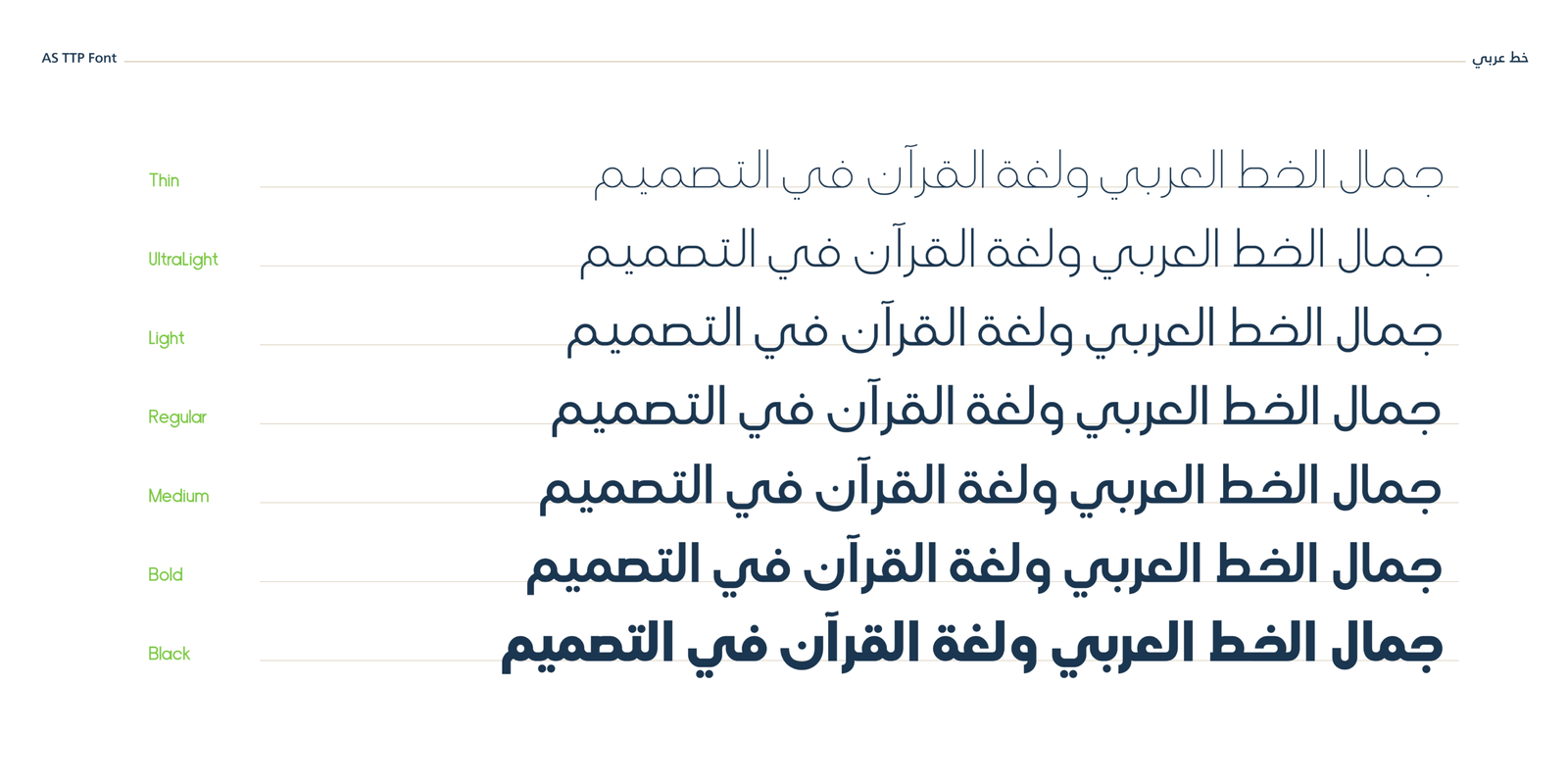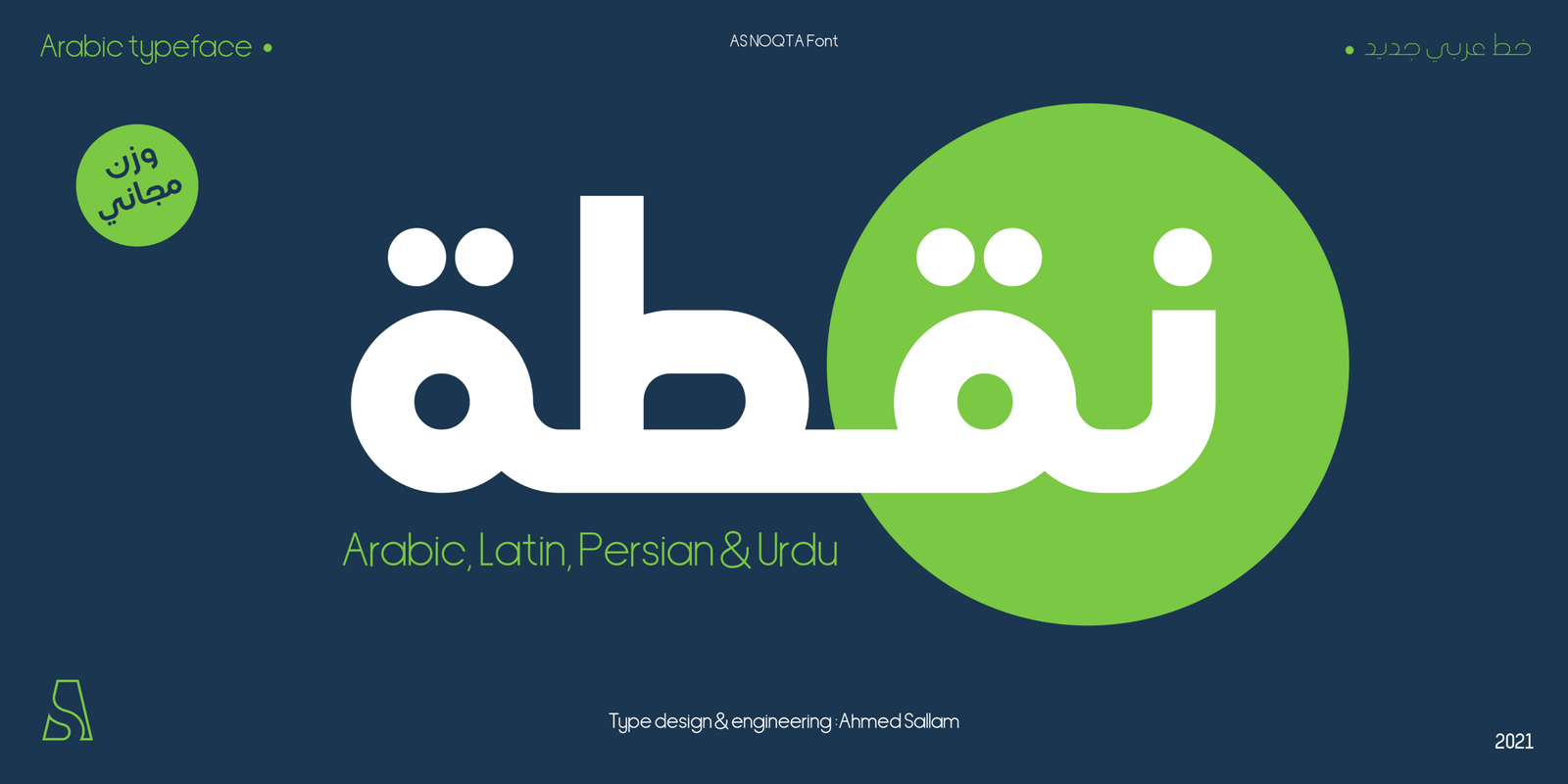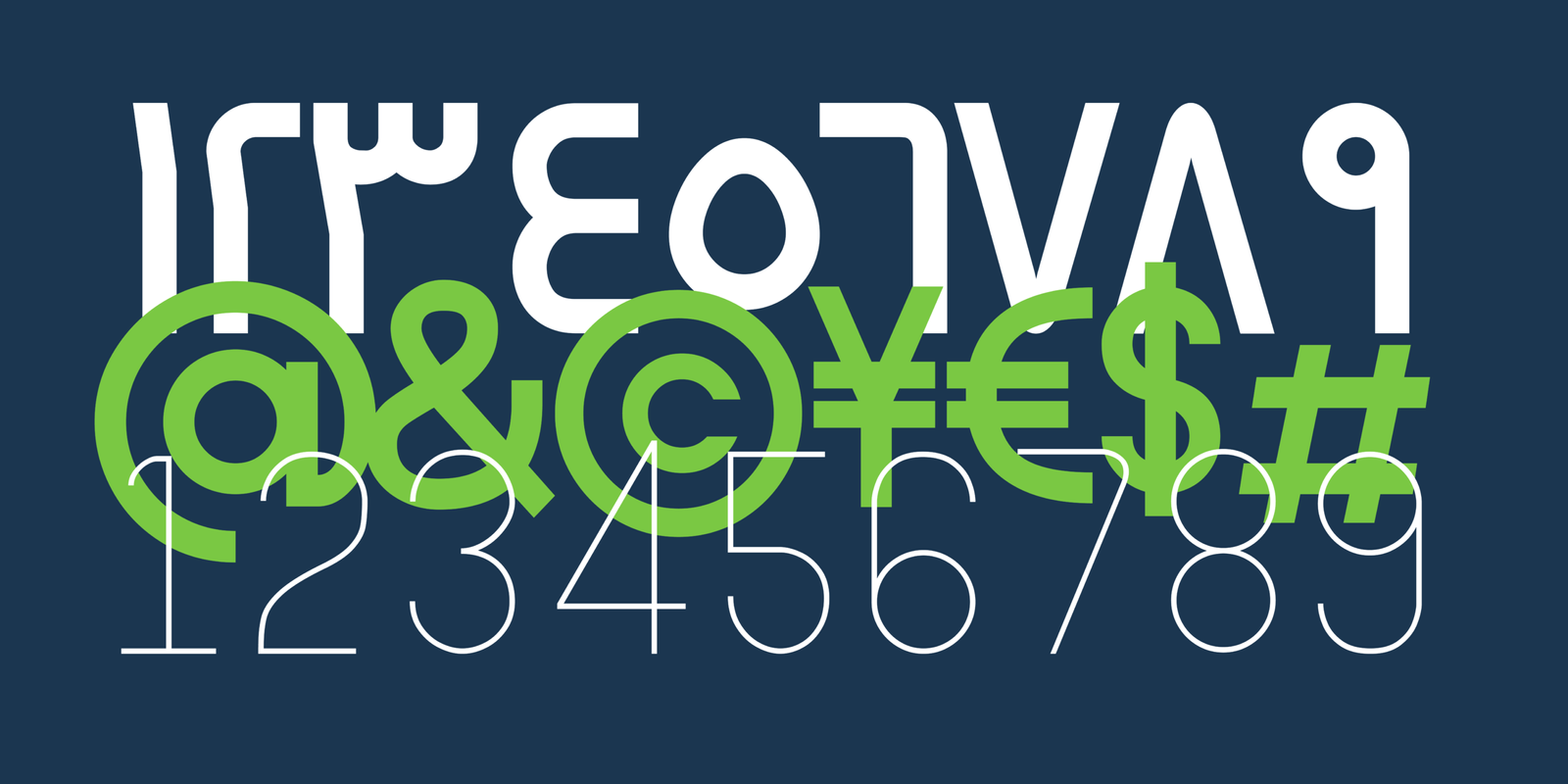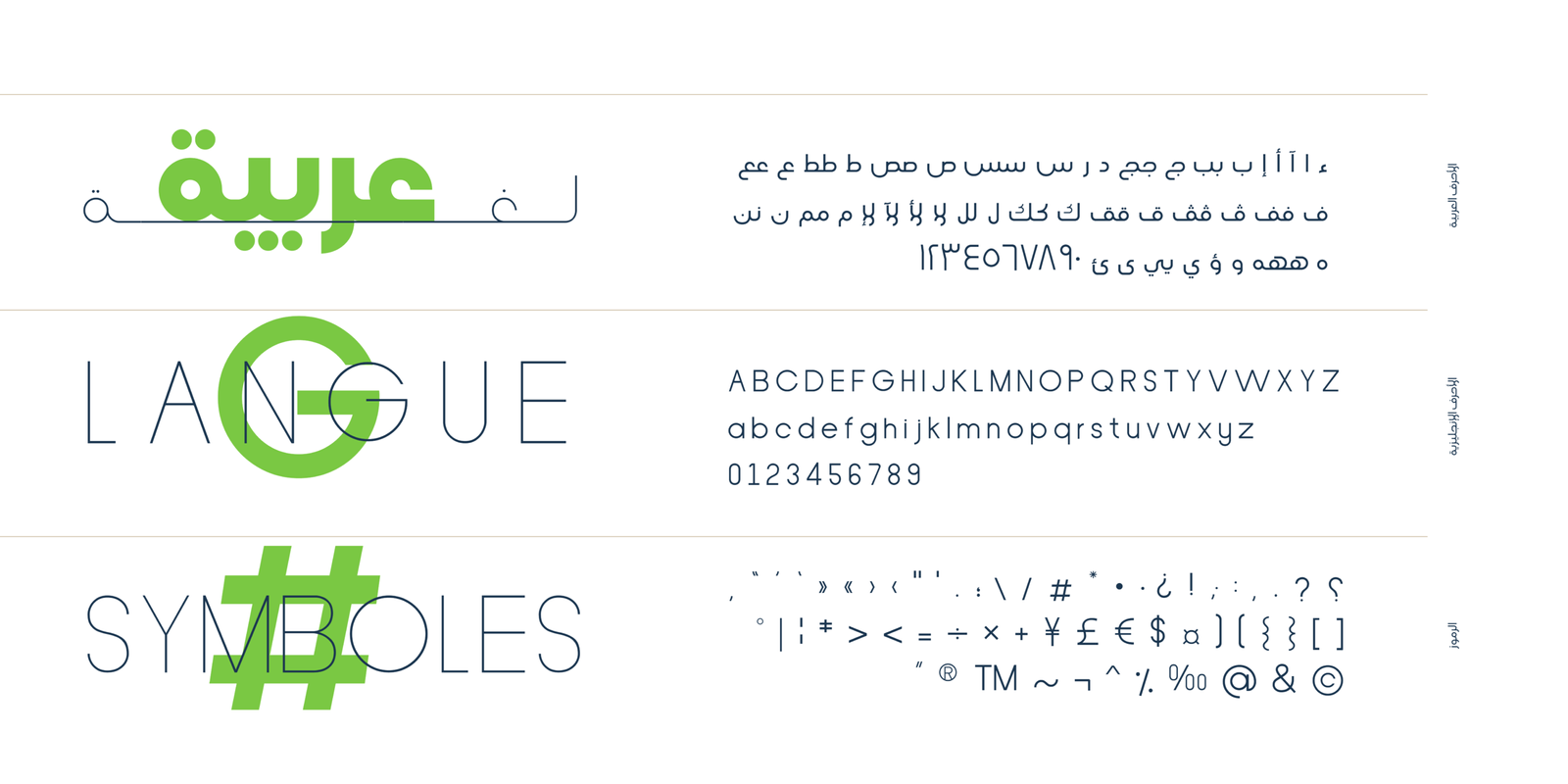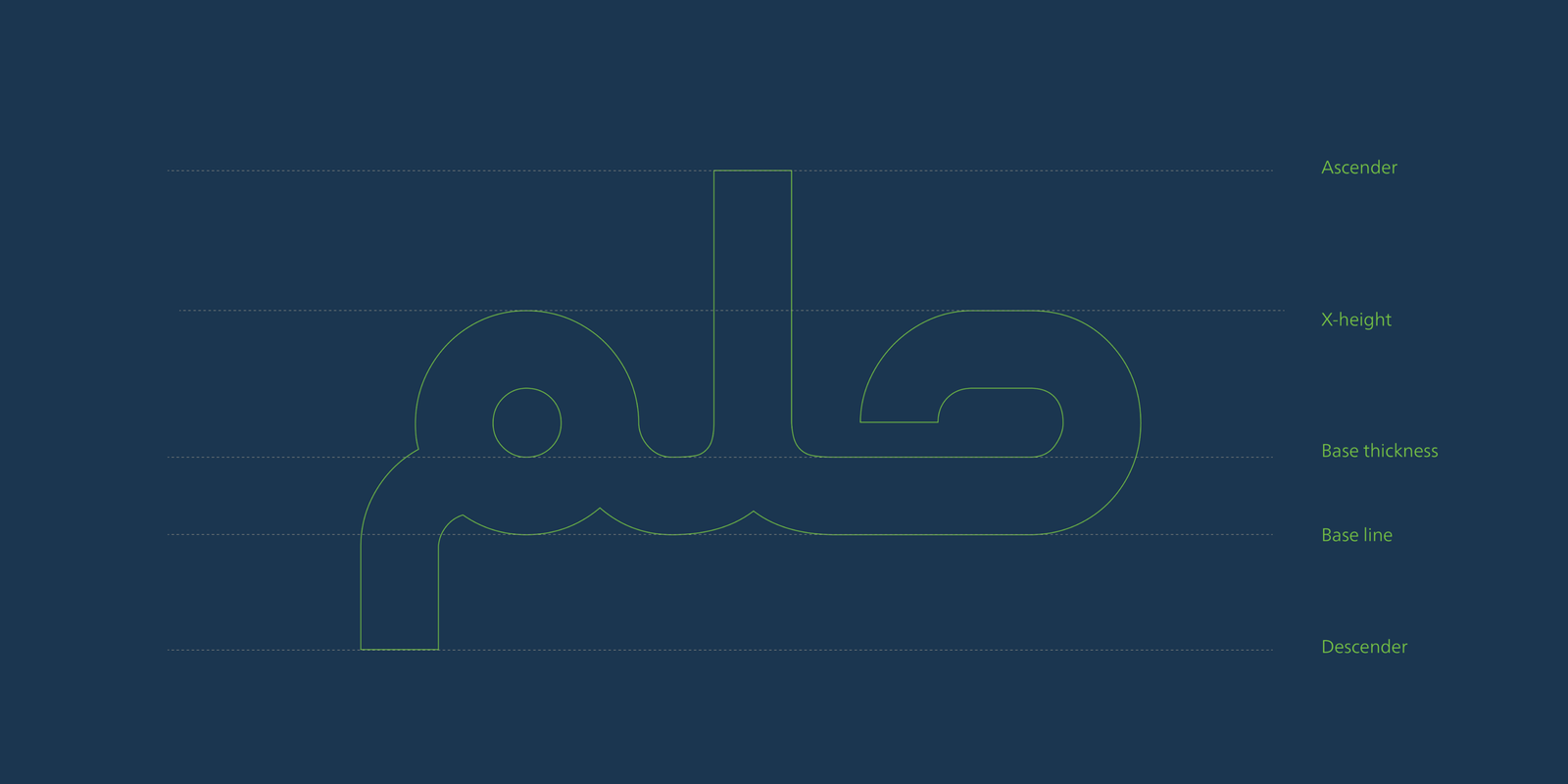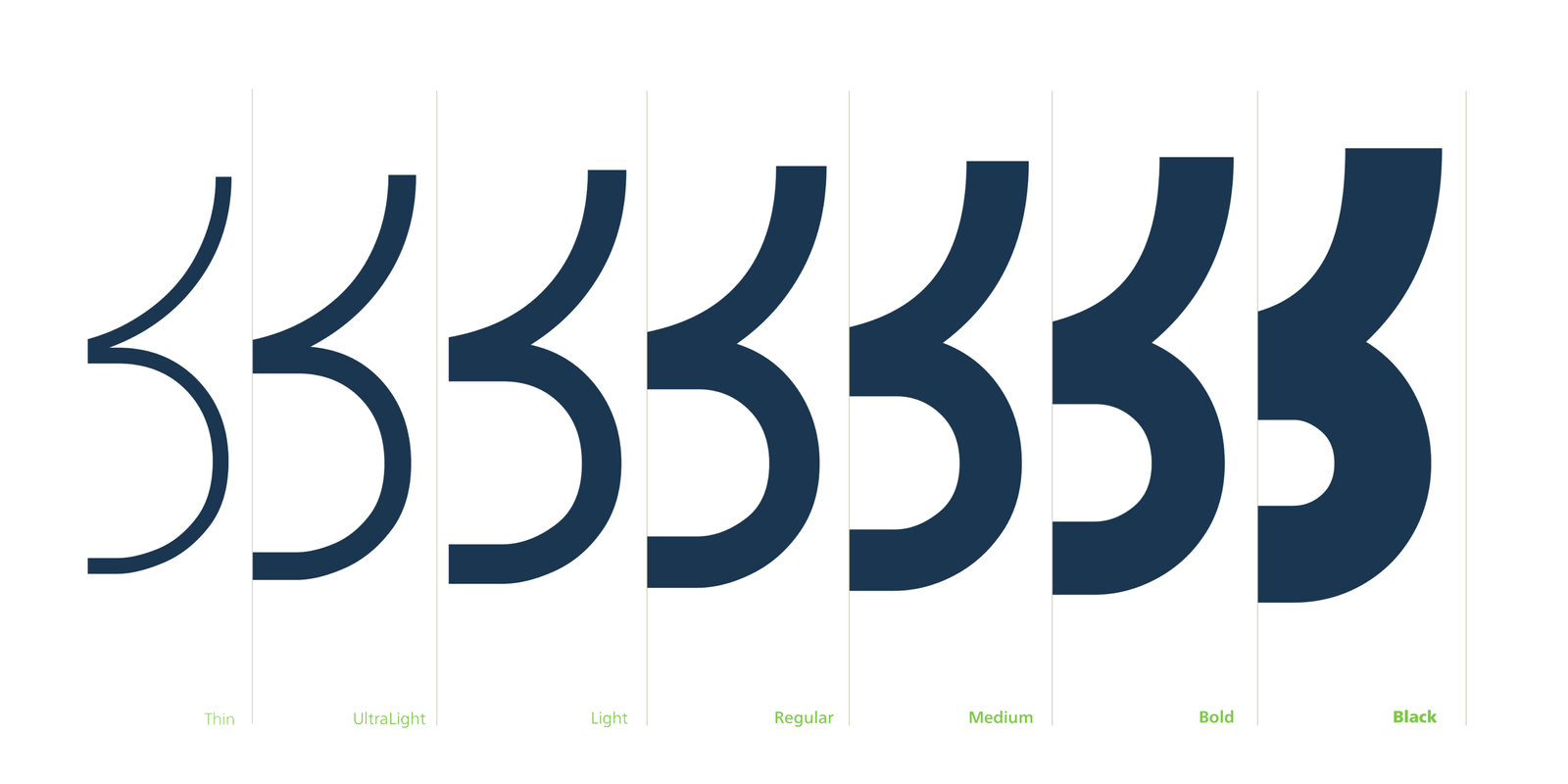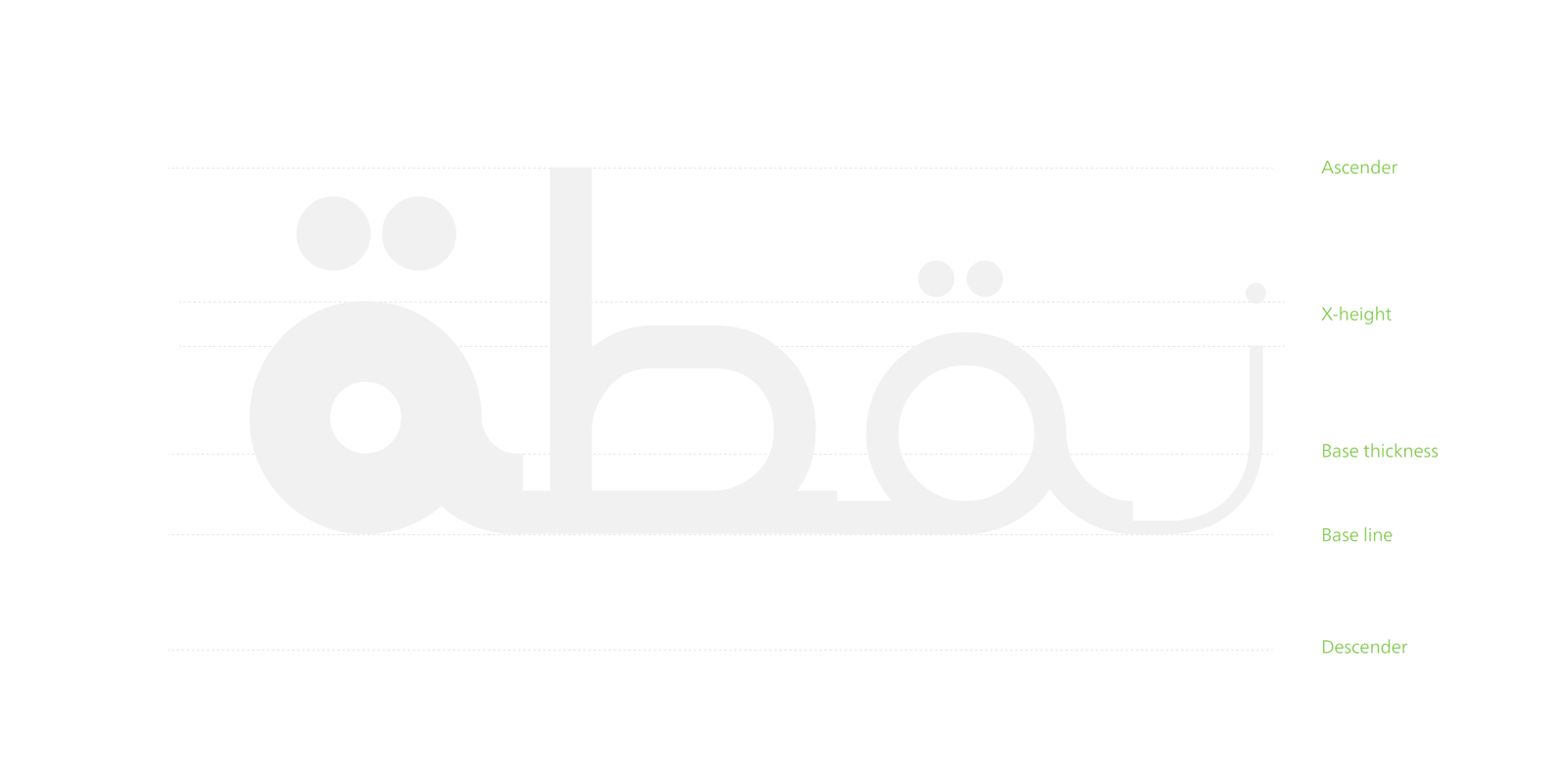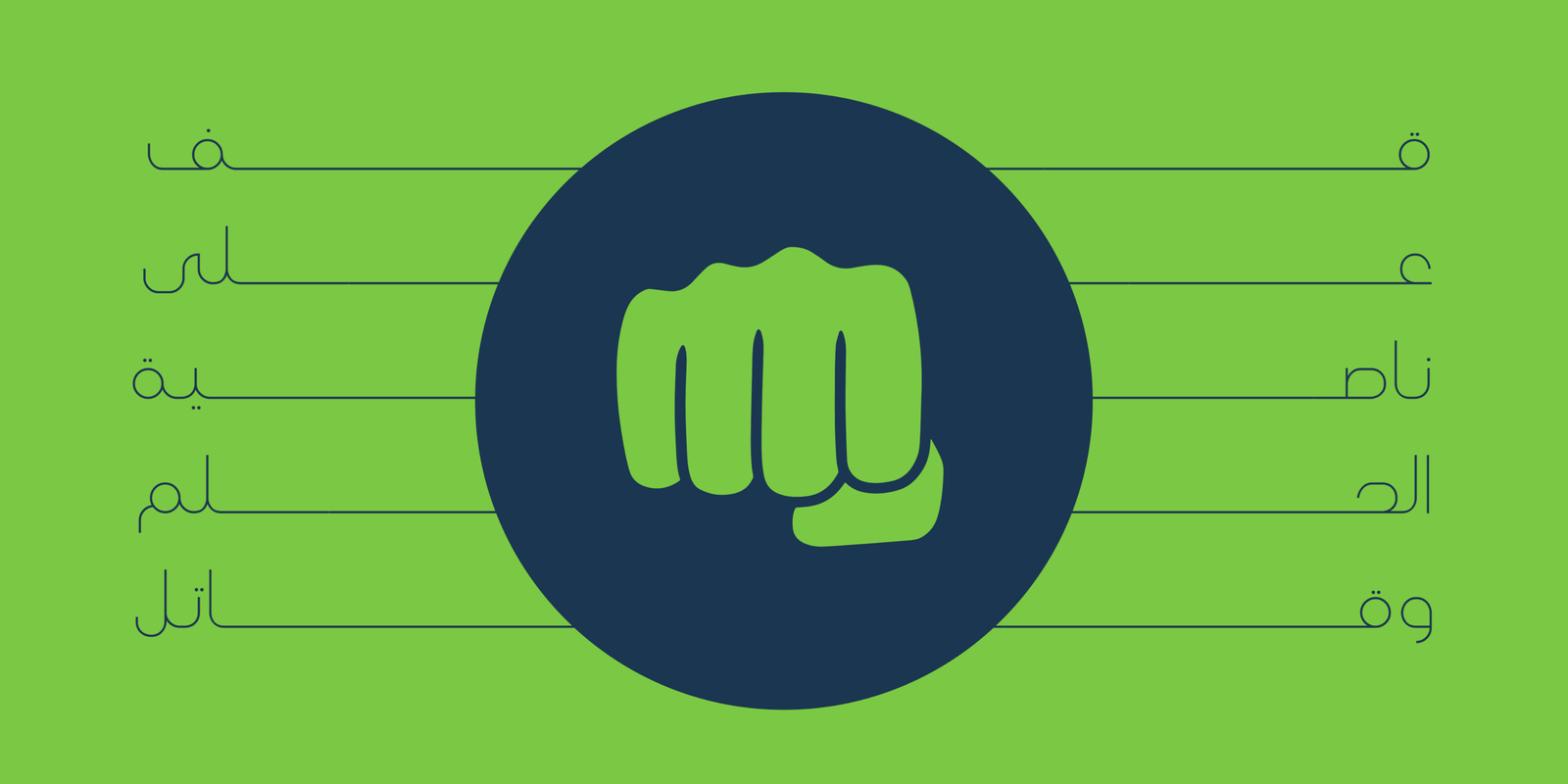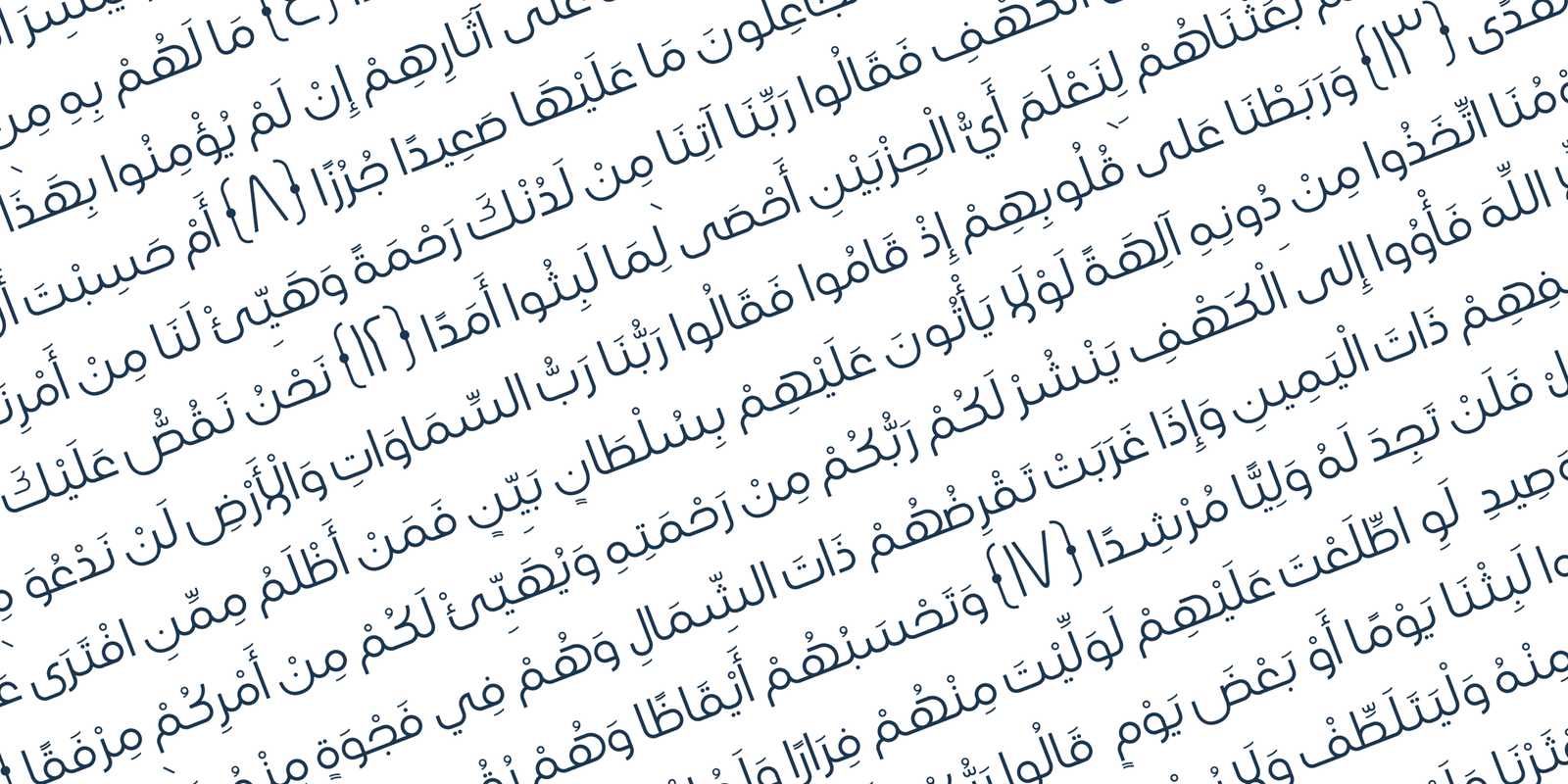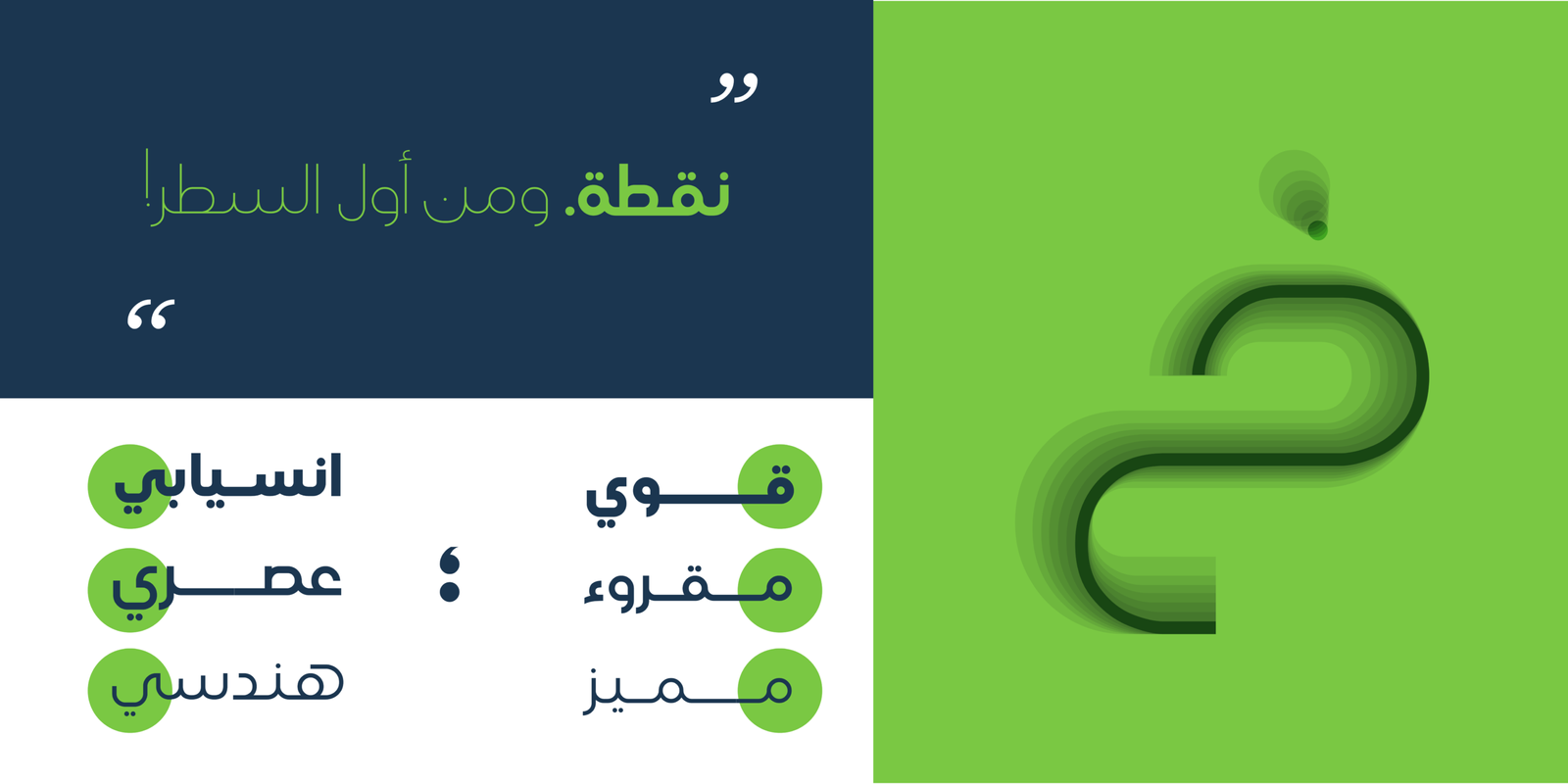
AS-NOQTA Font
AS-SAHA Its structure is equal and visually controlled. Character forms are a combination of vertical straight lines that integrate visually with soft angles in some areas.
AS NOQTA
AS NOQTA is a contemporary geometric Arabic font, drawn and constructed carefully Font design is inspired by the circl calligraphic style.
AS NOQTA Its structure is equal and visually controlled. Character forms are a combination of vertical straight lines that integrate visually with soft angles in some areas. This makes it a line of nature suitable for today’s technological and visual development. The variations and weights of this font are suitable to use companies in their names and appearance, and also suitable with the titles and logos and is also used in all the requirements of advertising and long texts, use in headlines, logotypes, branding, books, magazines, motion graphics, web and Tv.
AS NOQTA consists of 7-weight versions from Thin to Heavy.